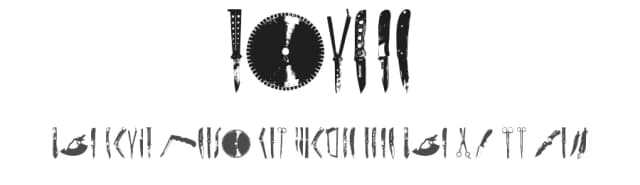
About Pip Boy Weapons Dingbats Font
Pip Boy Weapons Dingbats is a dingbats font designed by Skulls that brings playful character symbols to your creative designs. With 236 distinct glyphs and support for 209 languages across Latin-based character sets, this font delivers imaginative visual elements that work across numerous international design contexts without compatibility headaches. The "Weapons" theme combined with the dingbats category suggests a fun, gaming or comic-inspired aesthetic that stands apart from standard symbol collections and generic icon fonts.
This font excels in illustrated kids' craft projects, sticker sheet designs for vinyl cutting and decals, and playful children's party invitations with themed decoration. Comic book layouts and panels, video game promotional artwork, and novelty t-shirt graphics all benefit from its character-driven glyph set. Game designers developing indie titles, educators creating engaging classroom materials, and crafting enthusiasts building narrative-rich projects will find specific, thematic symbols ready to incorporate directly. The extensive language support means you can layer these decorative elements across international projects without worrying about encoding issues.
Pip Boy Weapons Dingbats Font is a versatile dingbats font that works for both headings and body text. Pair it with a contrasting sans-serif or serif font to add visual interest and a clear distinction between titles and body copy.
Pip Boy Weapons Dingbats Font
by Skulls